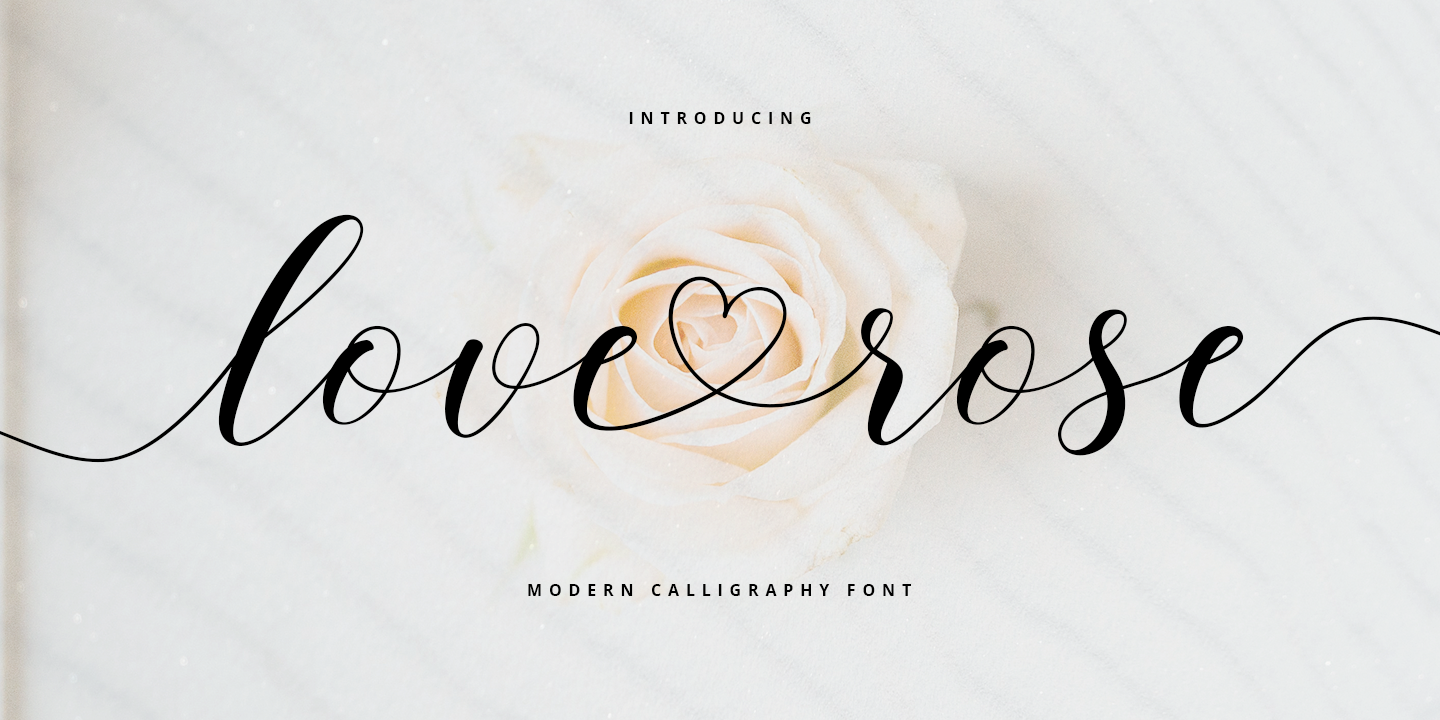
Love Rose Font is perfect for romantic wedding invitations, Valentine's Day cards, love letter designs, romantic restaurant branding, flower shop logos, beauty salon signage, engagement announcements, anniversary celebrations, romantic poetry books, dating app interfaces, jewelry store advertising, and intimate couple photography branding.
What makes Love Rose Font so exciting is its enchanting romantic aesthetic that beautifully captures the essence of love and passion through elegant curves and delicate floral-inspired details. This captivating typeface features graceful letterforms with subtle rose motifs and romantic flourishes that evoke feelings of tenderness, romance, and emotional connection, making it perfect for brands and projects that want to communicate love, beauty, and heartfelt emotions.
The Love Rose Font family typically includes regular and script variations with decorative rose elements, romantic ligatures, and ornamental characters that enhance the love-themed aesthetic while maintaining excellent legibility across various romantic design applications.
Whether you're designing wedding stationery or creating branding for romance-focused businesses, Love Rose Font Free Download offers the ideal typography solution for projects requiring romantic elegance and emotional appeal. This versatile font seamlessly combines passionate expression with sophisticated design, making it an essential resource for designers working on love-themed projects that need to convey intimacy, beauty, and the timeless power of romantic connection.